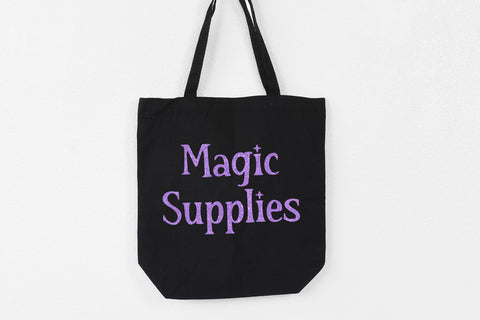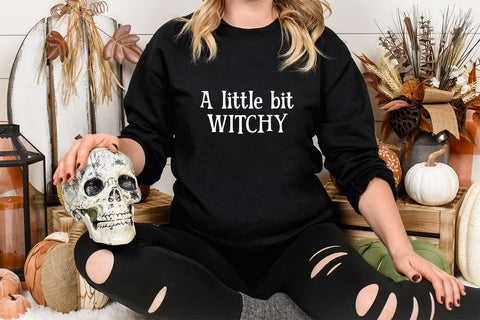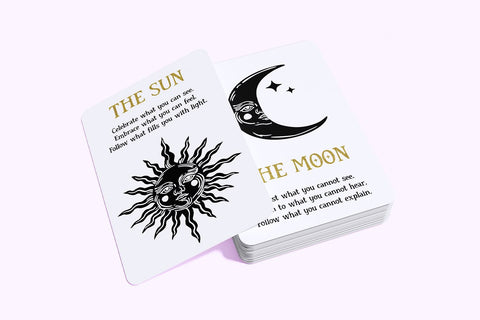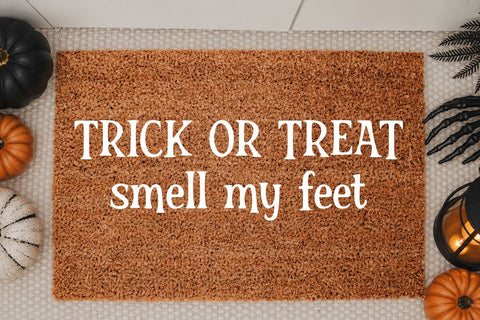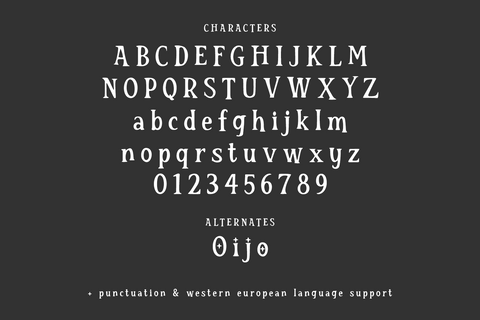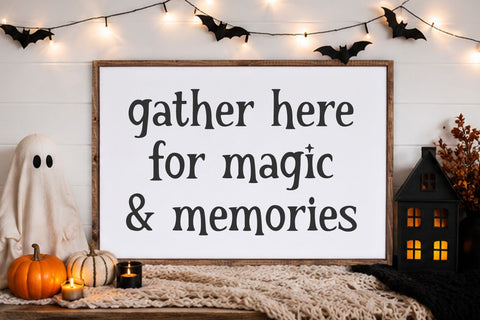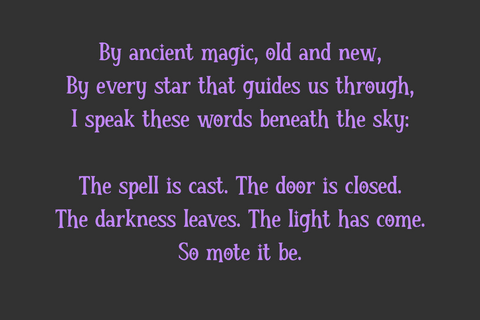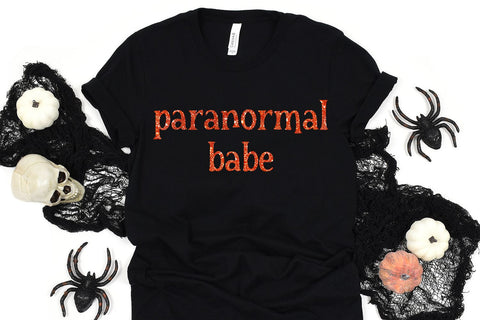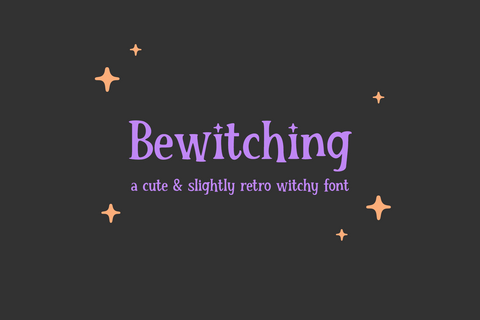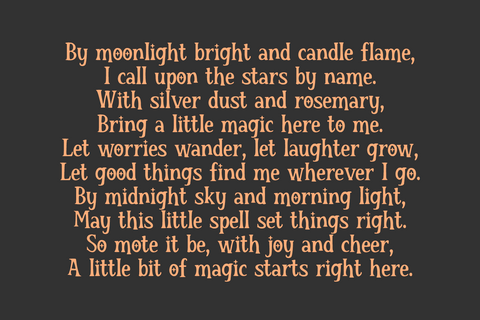
Bewitching Serif Font
Meet Bewitching, an adorable serif font with a slightly retro aesthetic and a bit of a wiggly baseline to add a playful feel to your project. Bewitching includes a few alternate characters with a magical star element - make sure you use OpenType friendly software to easily access those characters! (If you don’t use that type of software, you can still access the characters using Character Map (PC) or FontBook (Mac) to copy/paste the characters into a program of your choice.)
Bewitching was designed with crafters in mind, so it would make a great option to use for Halloween shirts, signs, tote bags, invitations, home decor, and any magic-themed projects. Its potential use goes beyond Halloween, though - use for logo designs, product packaging, social media, and more!
Bewitching includes:
- full upper + lowercase characters
- numbers + punctuation
- 4 alternate characters - O, i, j, o